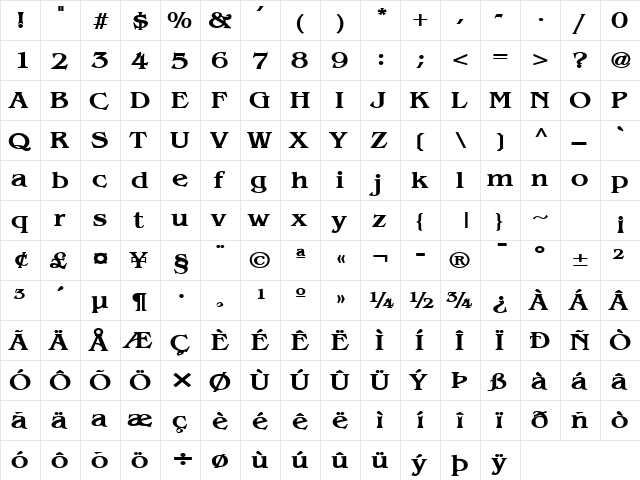
Bangle-Extended Bold
Design Context for Bangle-Extended Typeface
Bangle-Extended offers clean, dependable letterforms without strong stylistic allegiance, making it a practical choice for designers who need flexibility. Its bold stroke weight gives it real presence on the page.
Pro Tip: Use Bangle-Extended in both headline and body roles to test its range before committing to a single application.